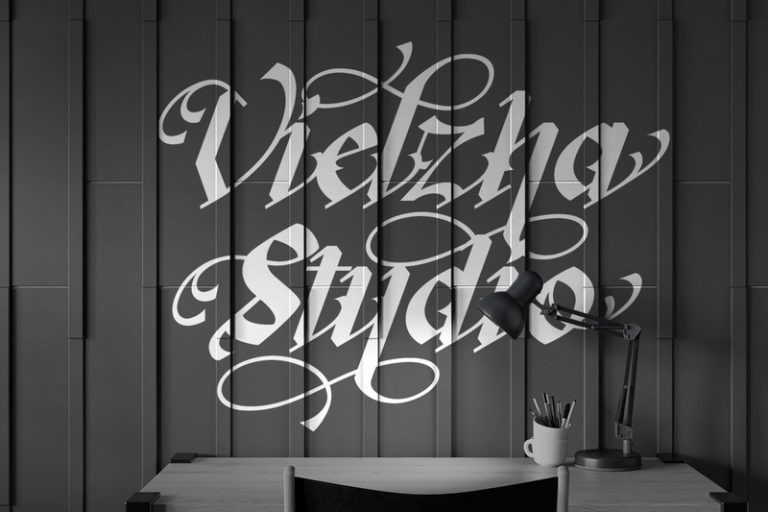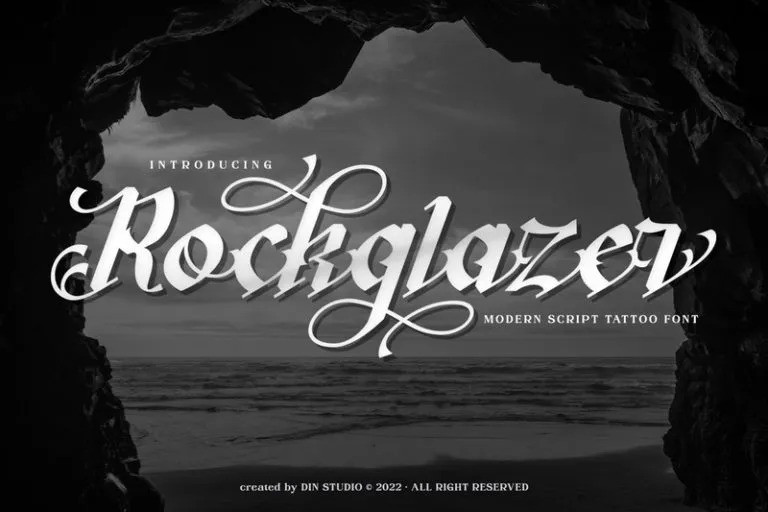
Rockglazer Font
Rockglazer Font is a script font similar to a curve writing which expresses modernity, boldness and strength, unlike the other script fonts. There are swinging curves and wipes on some of the letters to add beauty, and the differences in the line thickness of each letter are so clear that you can use this font for bigger-sized texts for a better legibility.